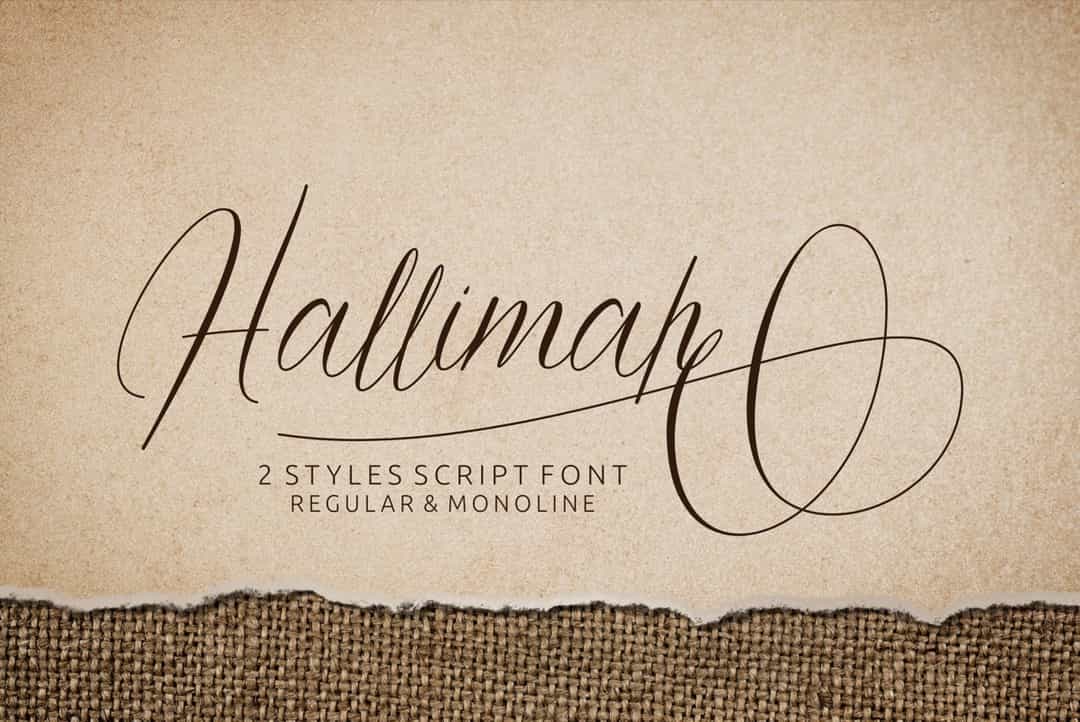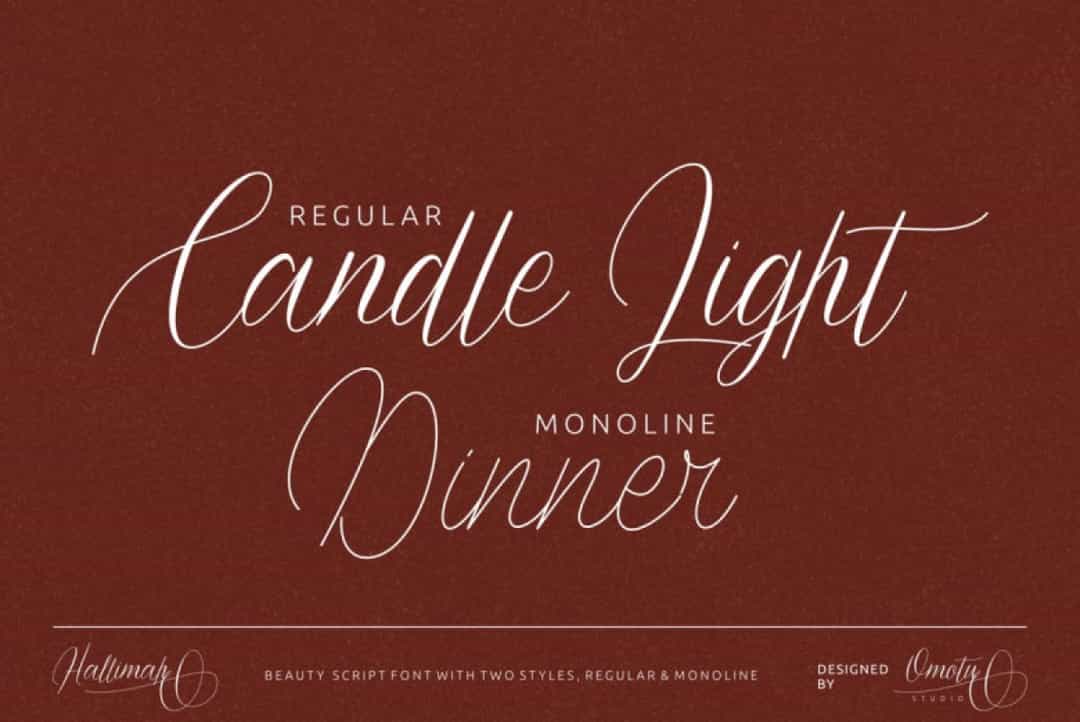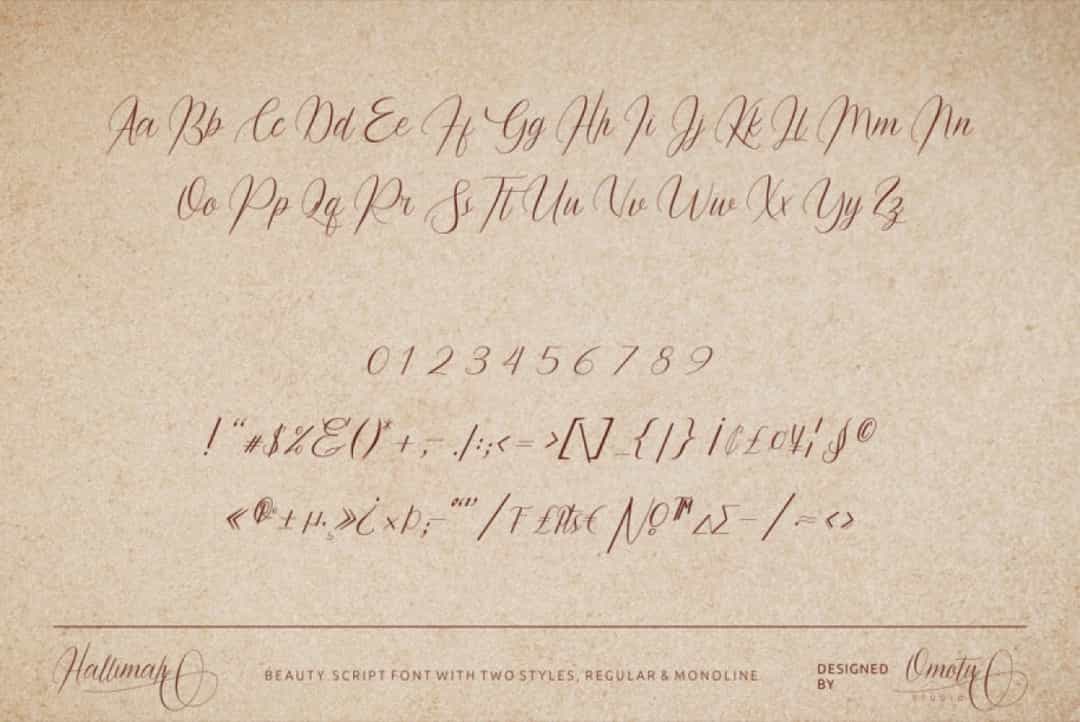
Hallimah Font
Hallimah is a handwritten script font that was designed by Omotu and this font has a rich classical typography feel to it. Take your spirit from it and its smooth curves! Calligraphy Lettering Font for posters, headline, logo, and tshirt design. Handwritten sayings and messages for the use on greeting cards and for numerous other purposes.